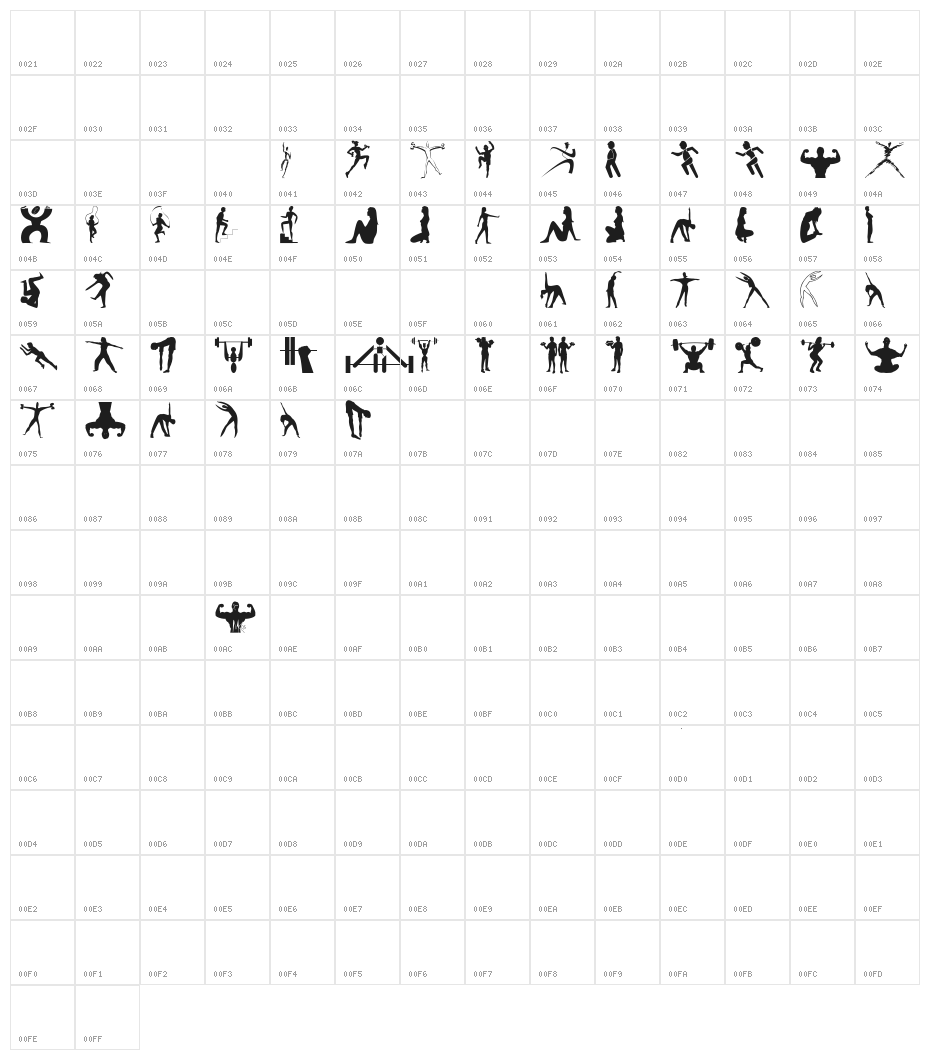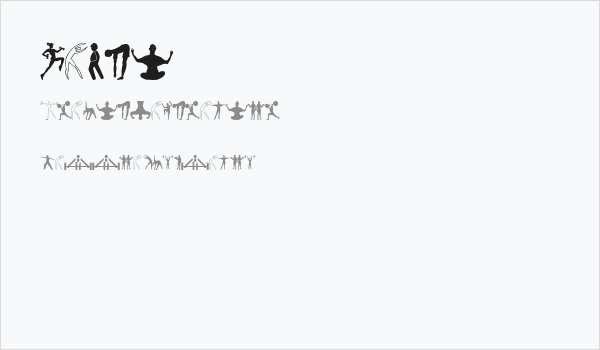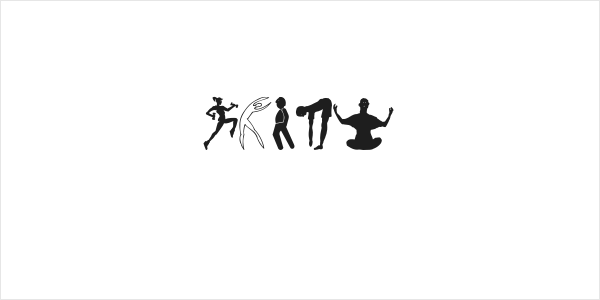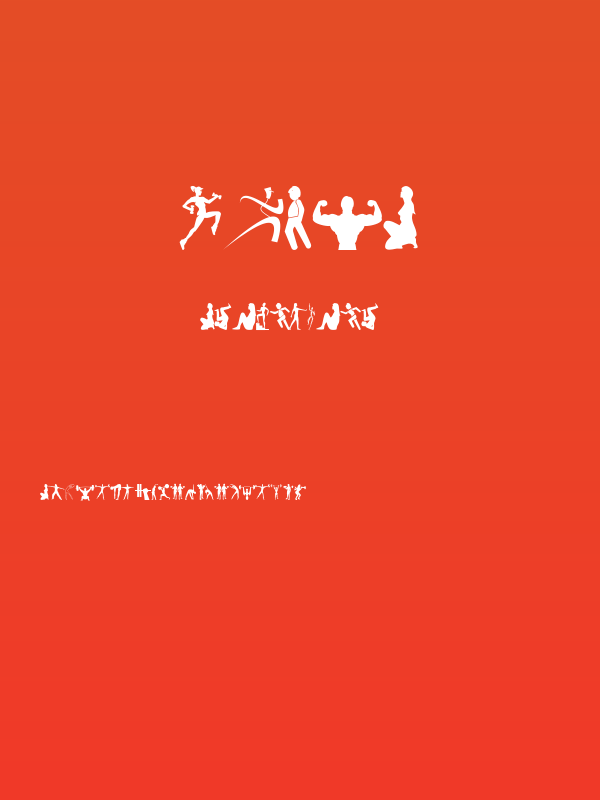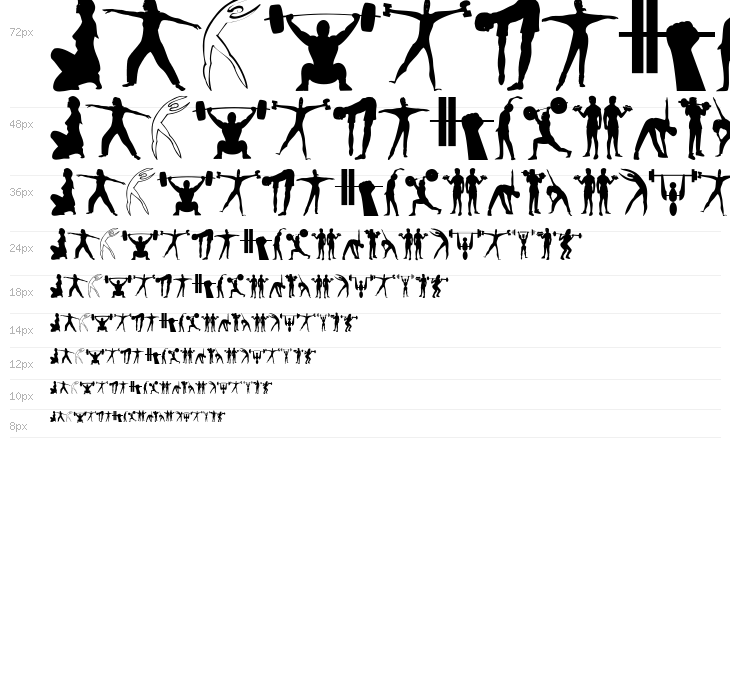
BeFit Font
A decorative display font composed of stylized human silhouettes performing various fitness, exercise, and athletic poses, with each character represented by a unique figure or action. The glyphs are highly illustrative and dynamic, emphasizing movement and physical activity.
| Overall Style | Decorative, Energetic, Modern |
| Use Case | Logos, Headlines, Posters, Themed graphics |
| Proposed Projects | Fitness branding, gym posters, sports event flyers, wellness campaigns, active lifestyle advertisements. |